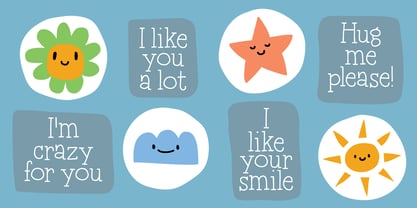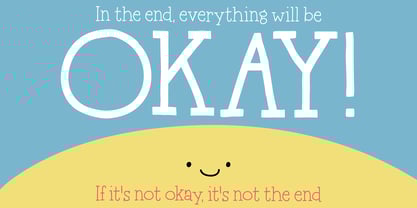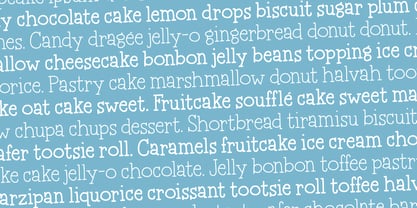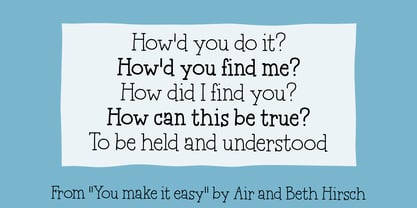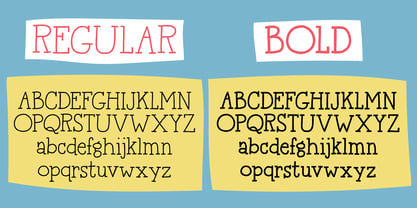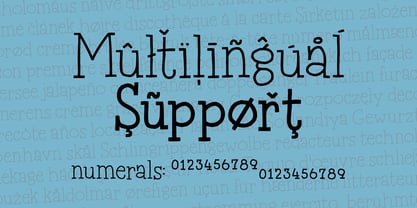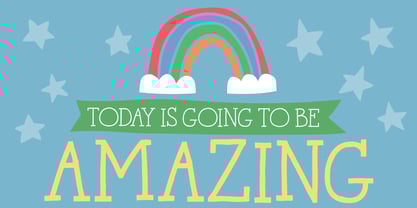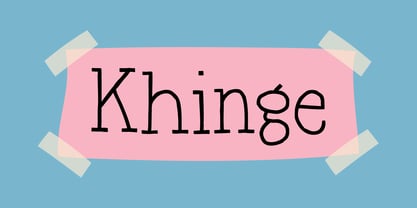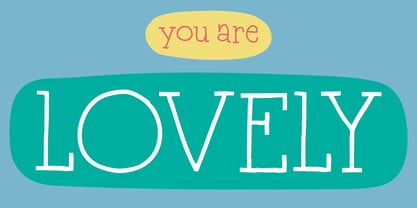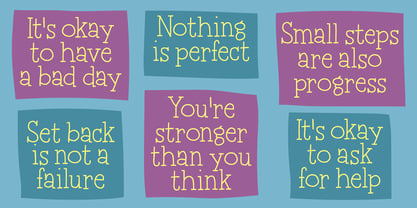
Khinge
by Bogstav
The Khinge Font Family was designed by Jakob Fischer and published by Bogstav. Khinge contains 4 styles and family package options.
Khinge is my take on an elegant and kind of romantic serif font. The natural handmade details, and minor irregularities makes sure your designs look nice, without being too traditional or formal.
It’s elegant with slightly uneven lines, leaving a charming and warm feeling and a touch of character.
Khinge comes in both Regular and Bold versions, and they work very well together!